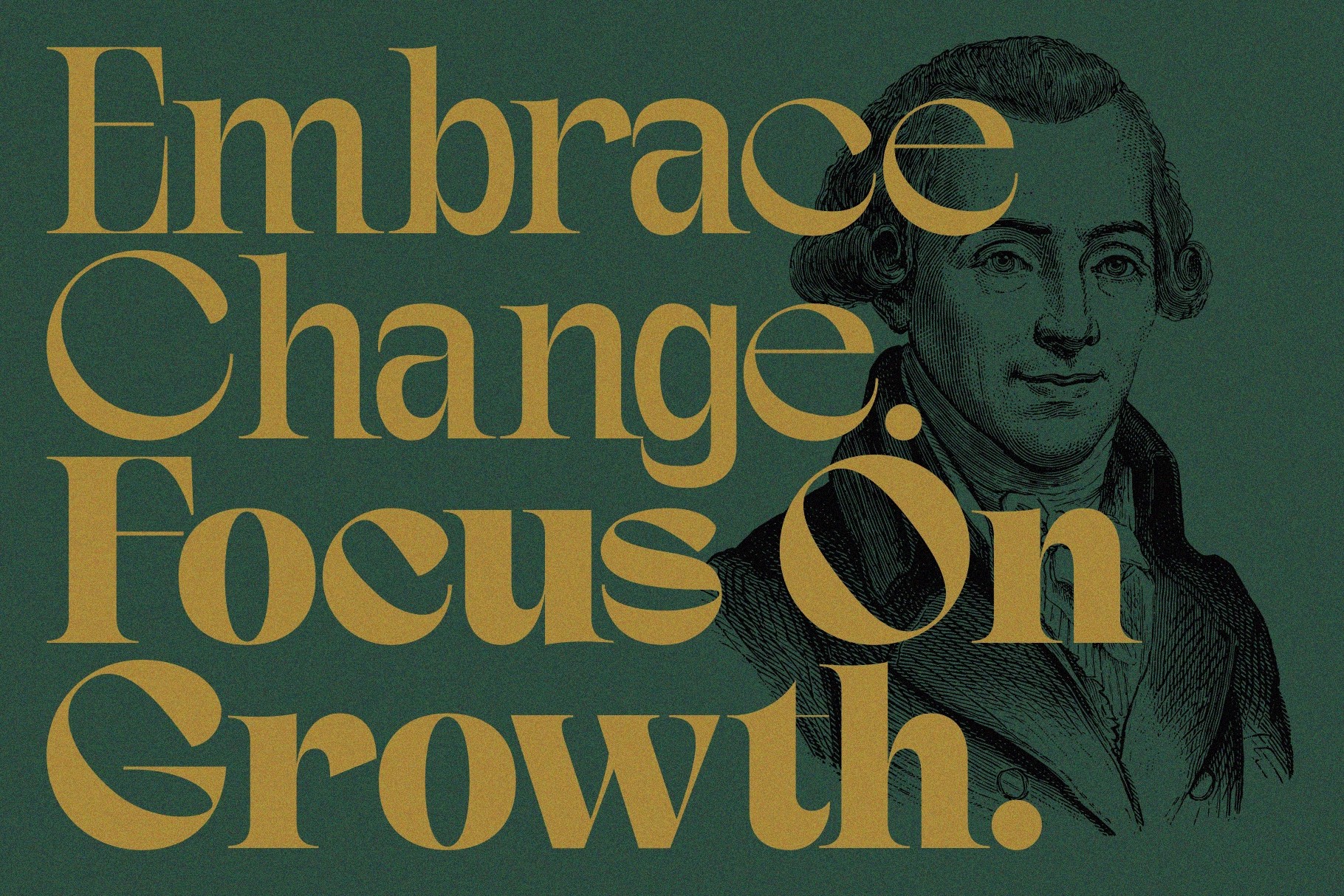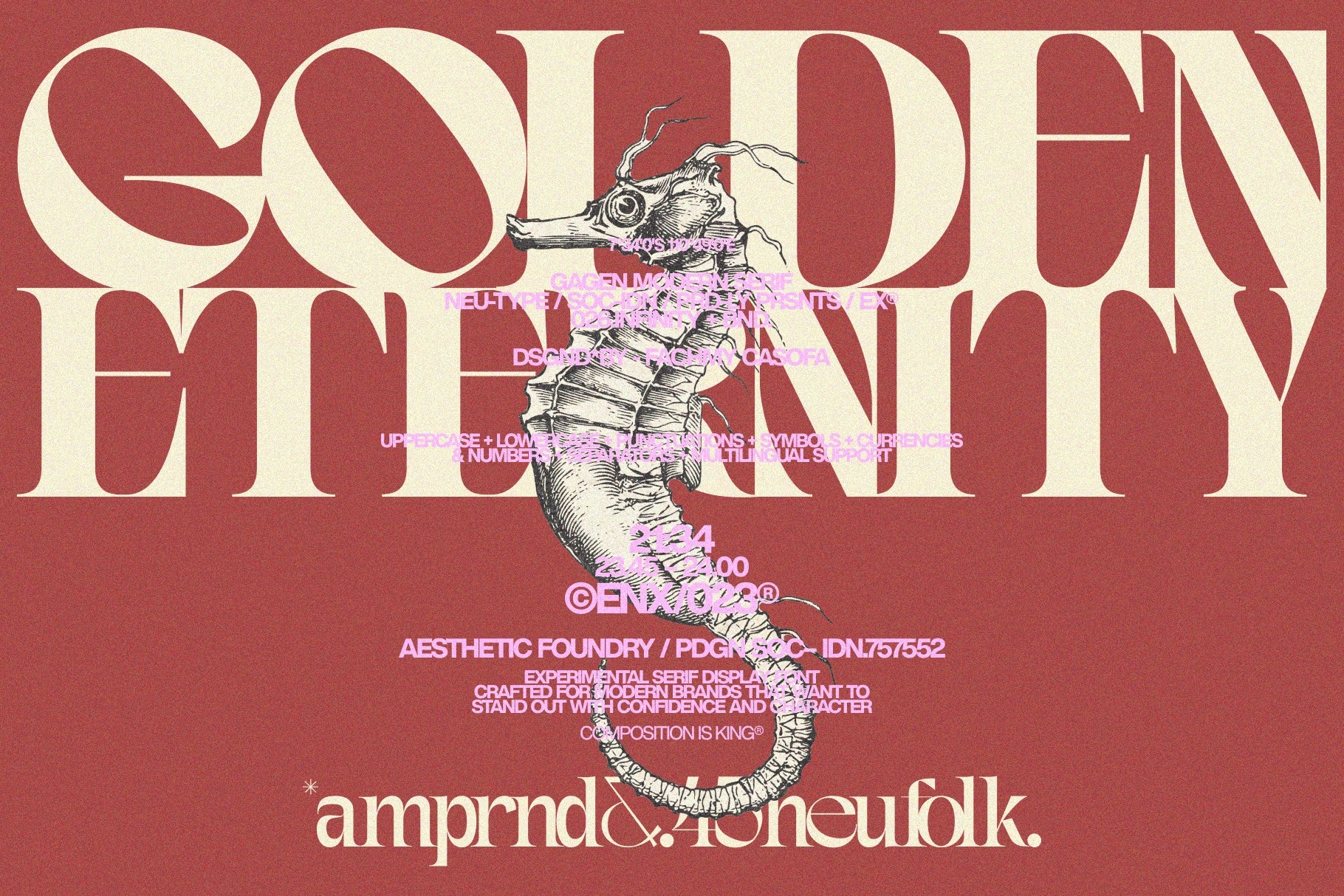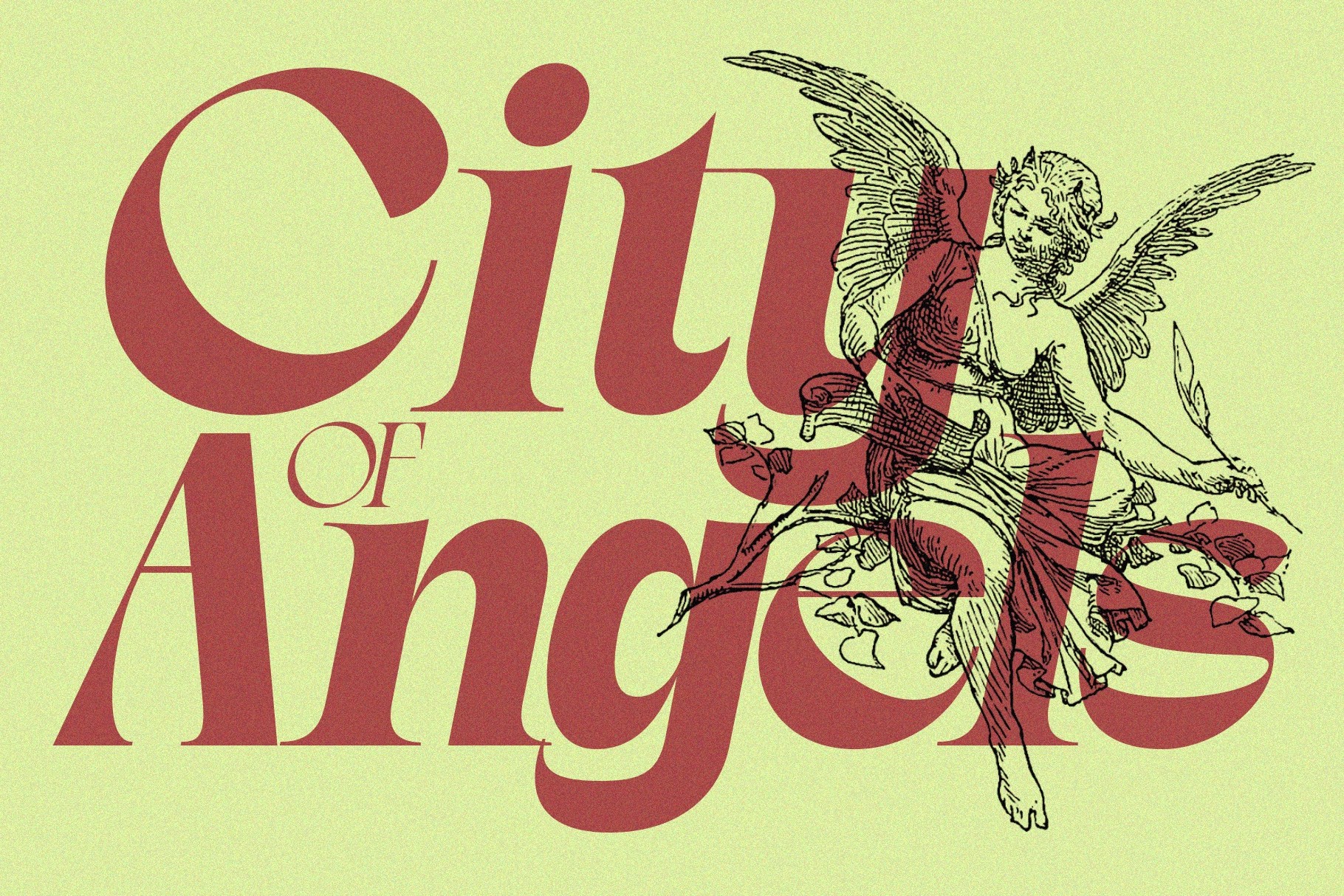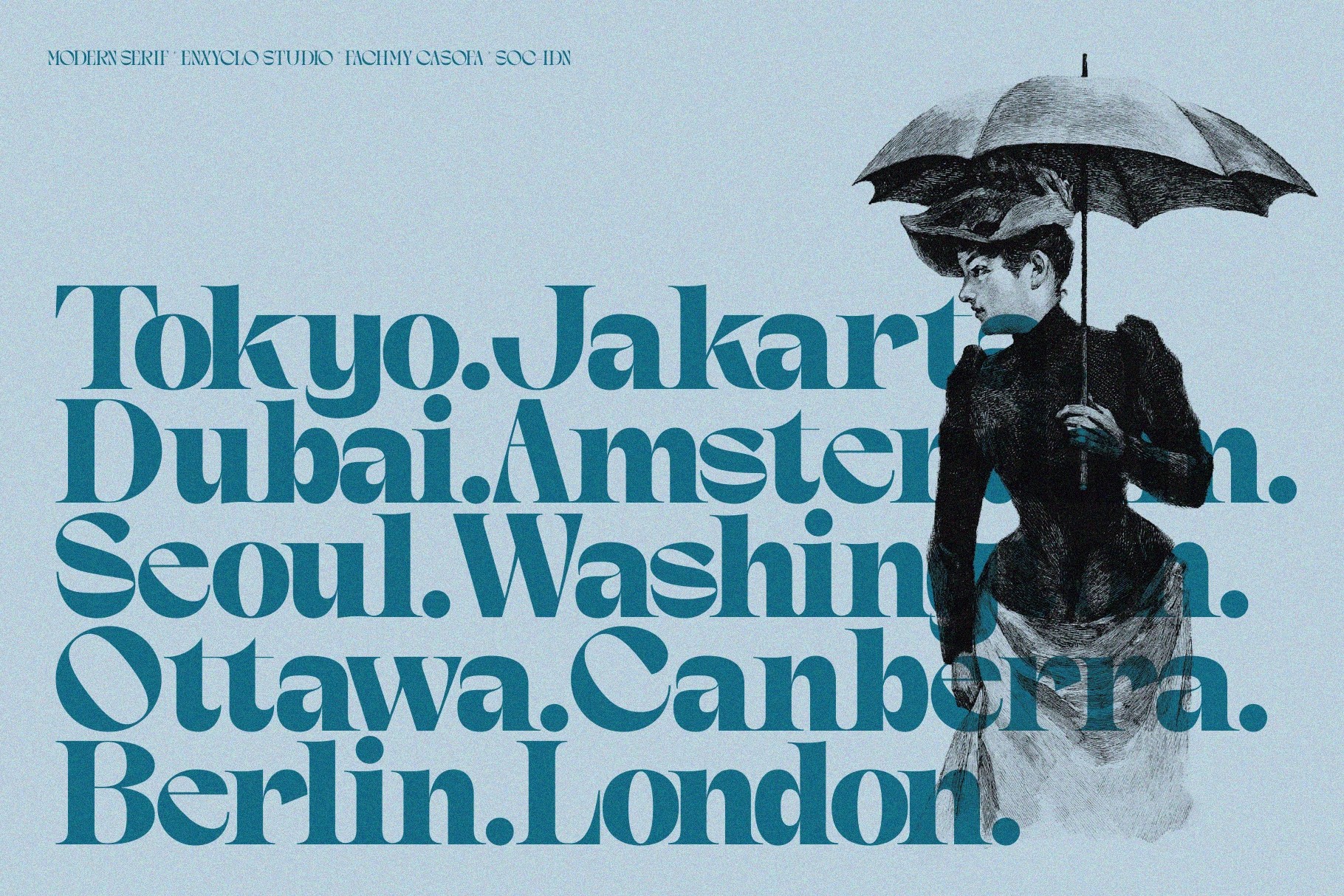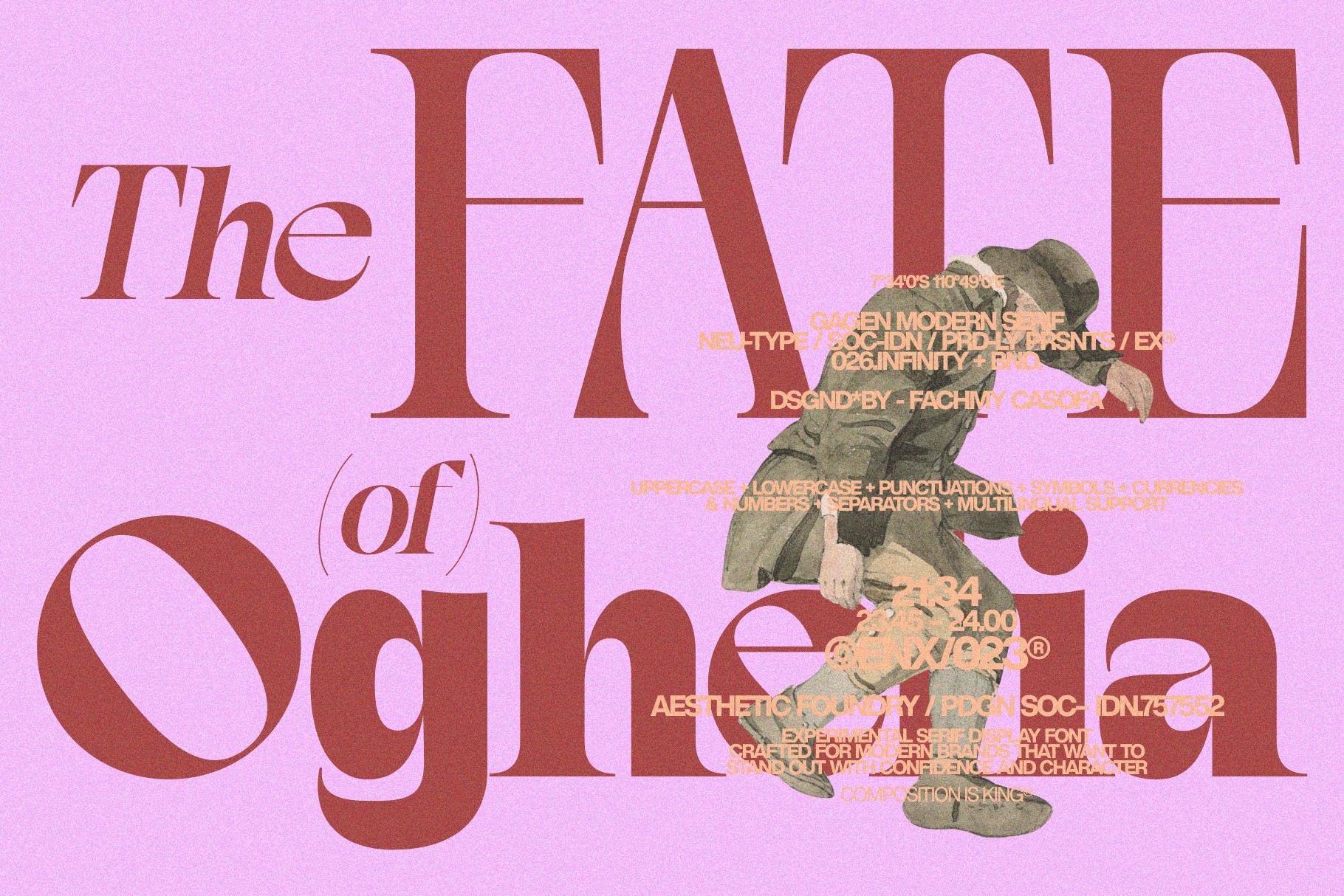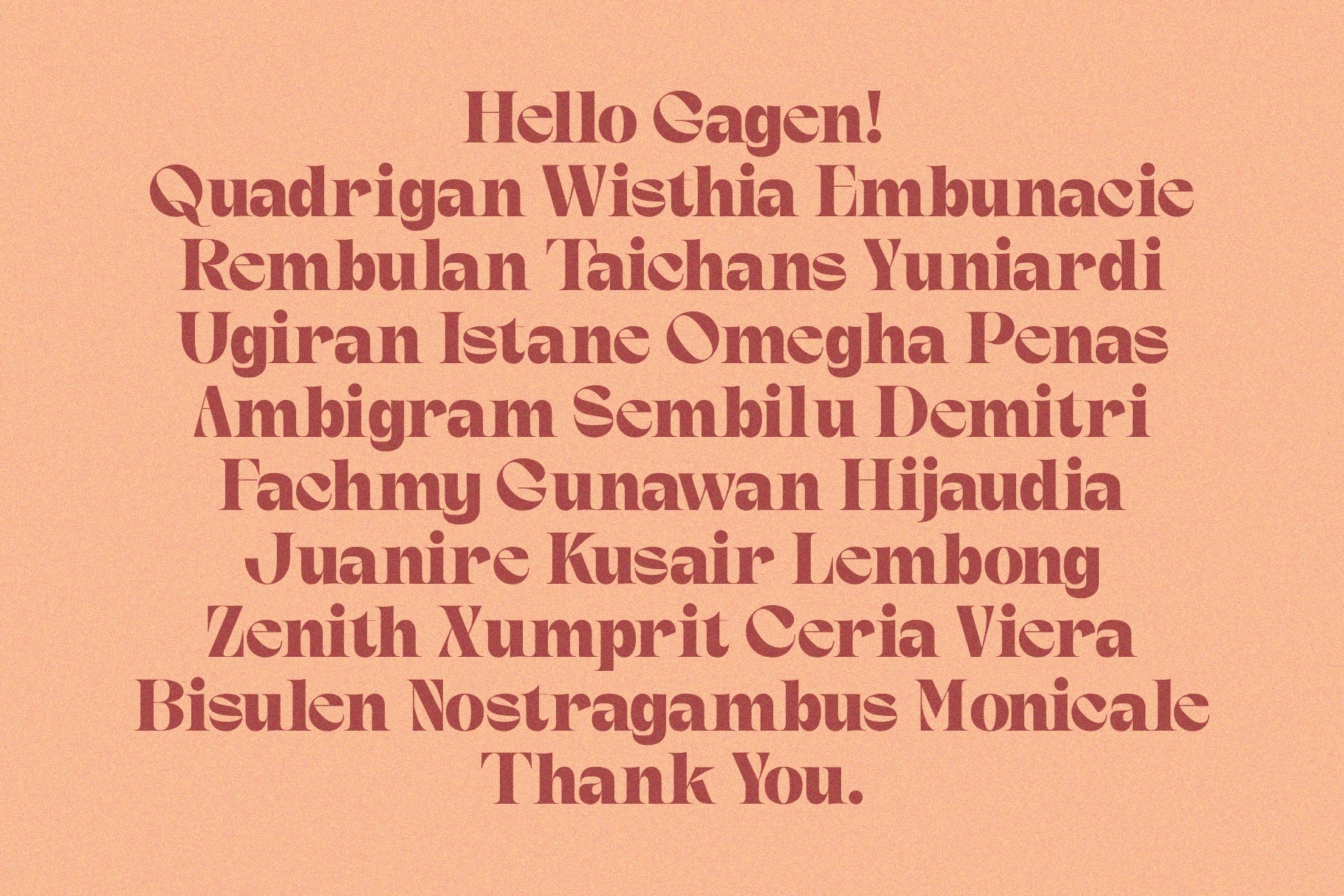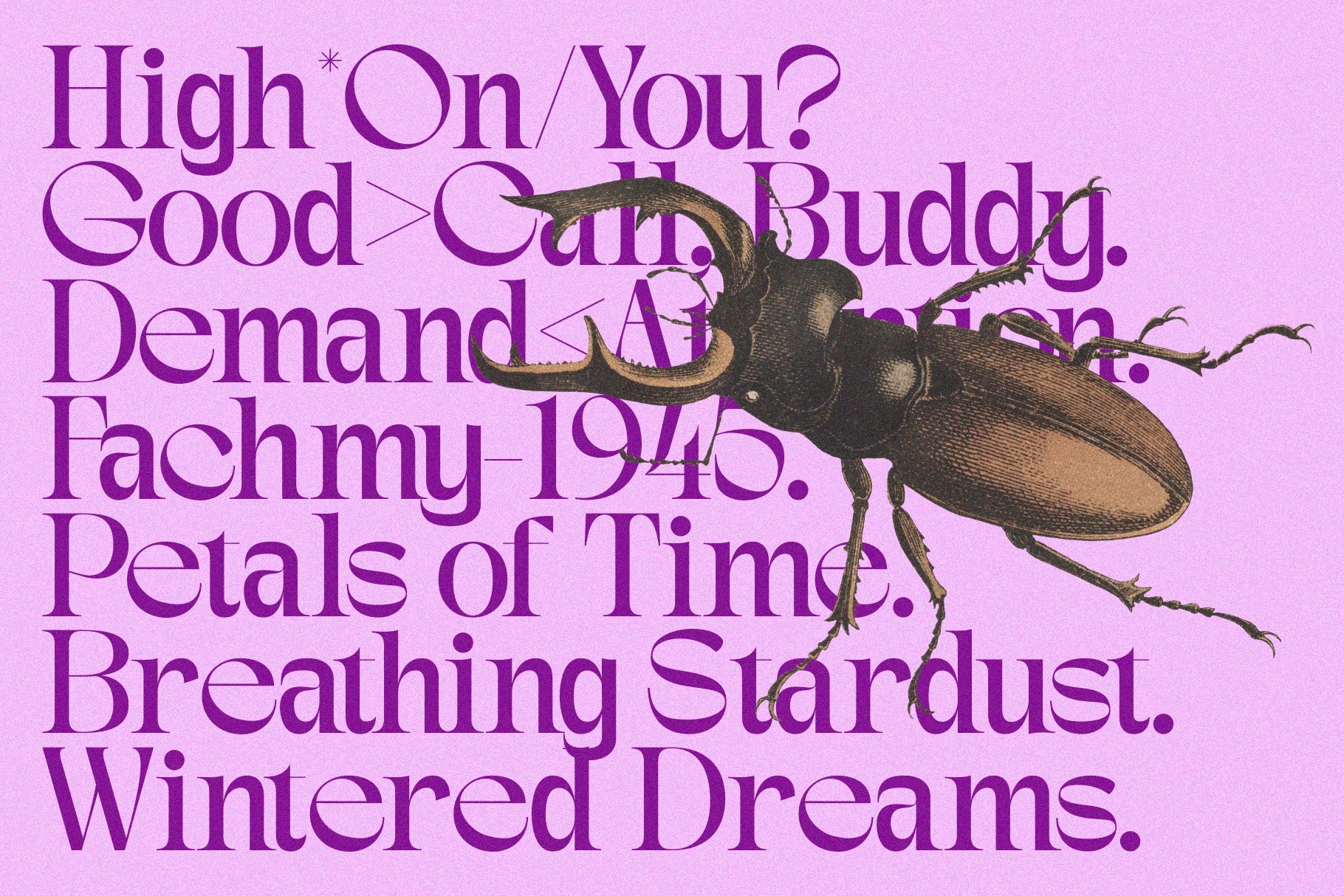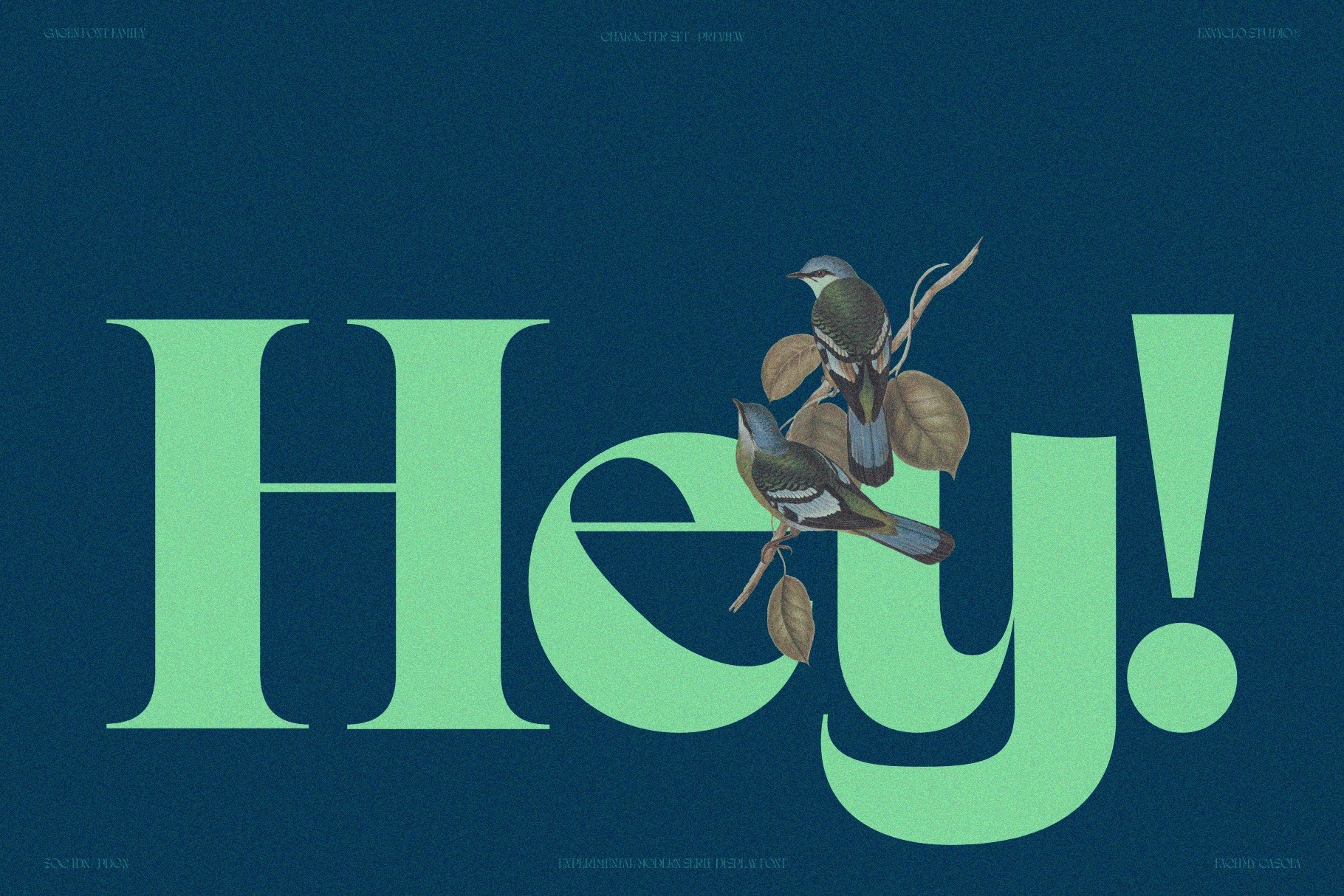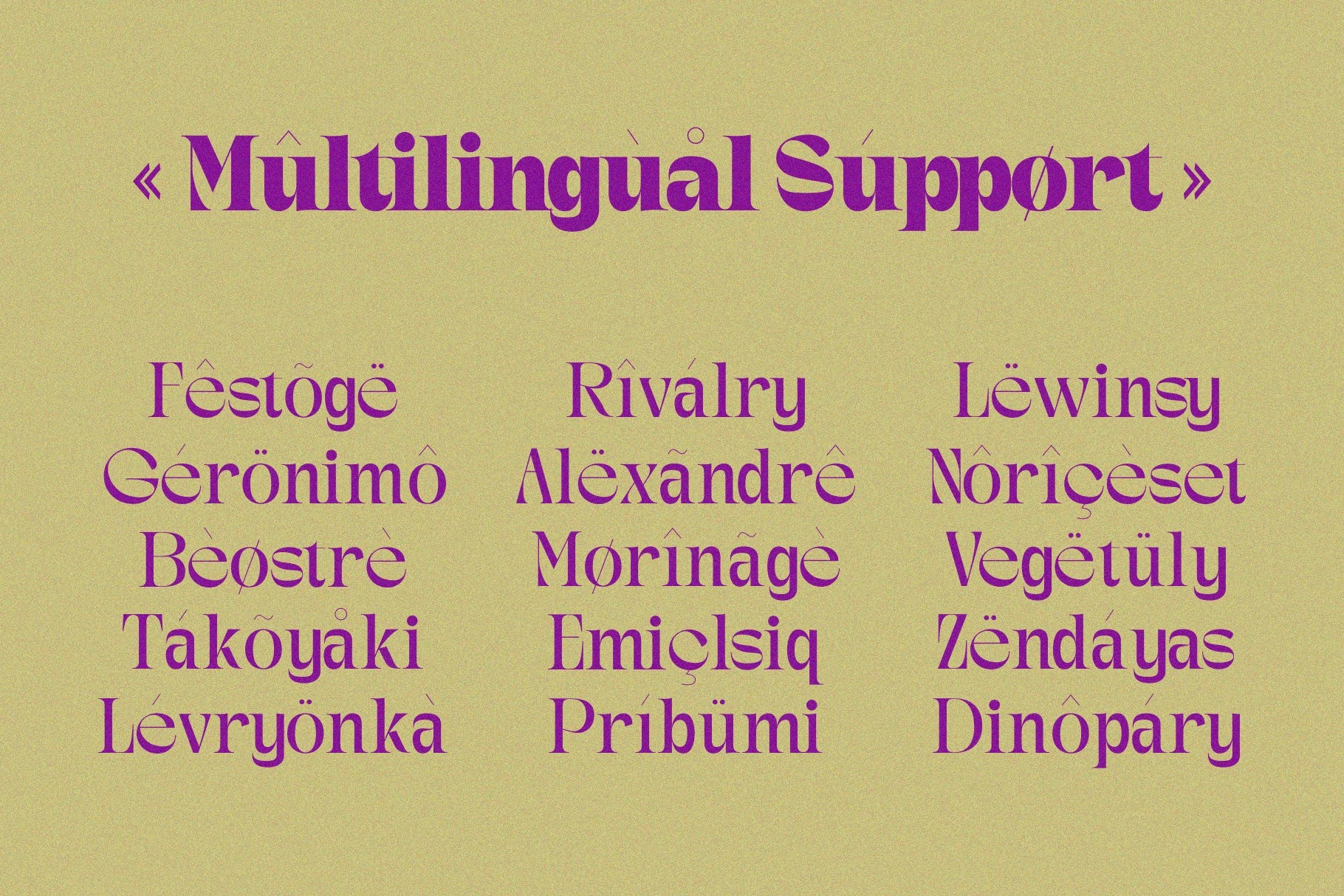
Gagen - Modern Editorial Serif Font
Gagen builds a high-contrast serif with hairline strokes against heavy, swelling stems, closer to a fashion magazine masthead than a quiet text serif. Five weights move from a delicate Light through a solid Bold, and each comes with a matching slanted version. Real fractions and superscript figures round out the numeral set.
Use it for fashion, beauty, skincare, and boutique branding, packaging, editorial headlines, and logotypes that want an elegant, confident voice.
- Uppercase & lowercase;
- Numerals, punctuation & symbols;
- 5 weights: Light, Regular, Medium, SemiBold, Bold;
- Matching slanted version for every weight;
- Fractions and superscript figures;